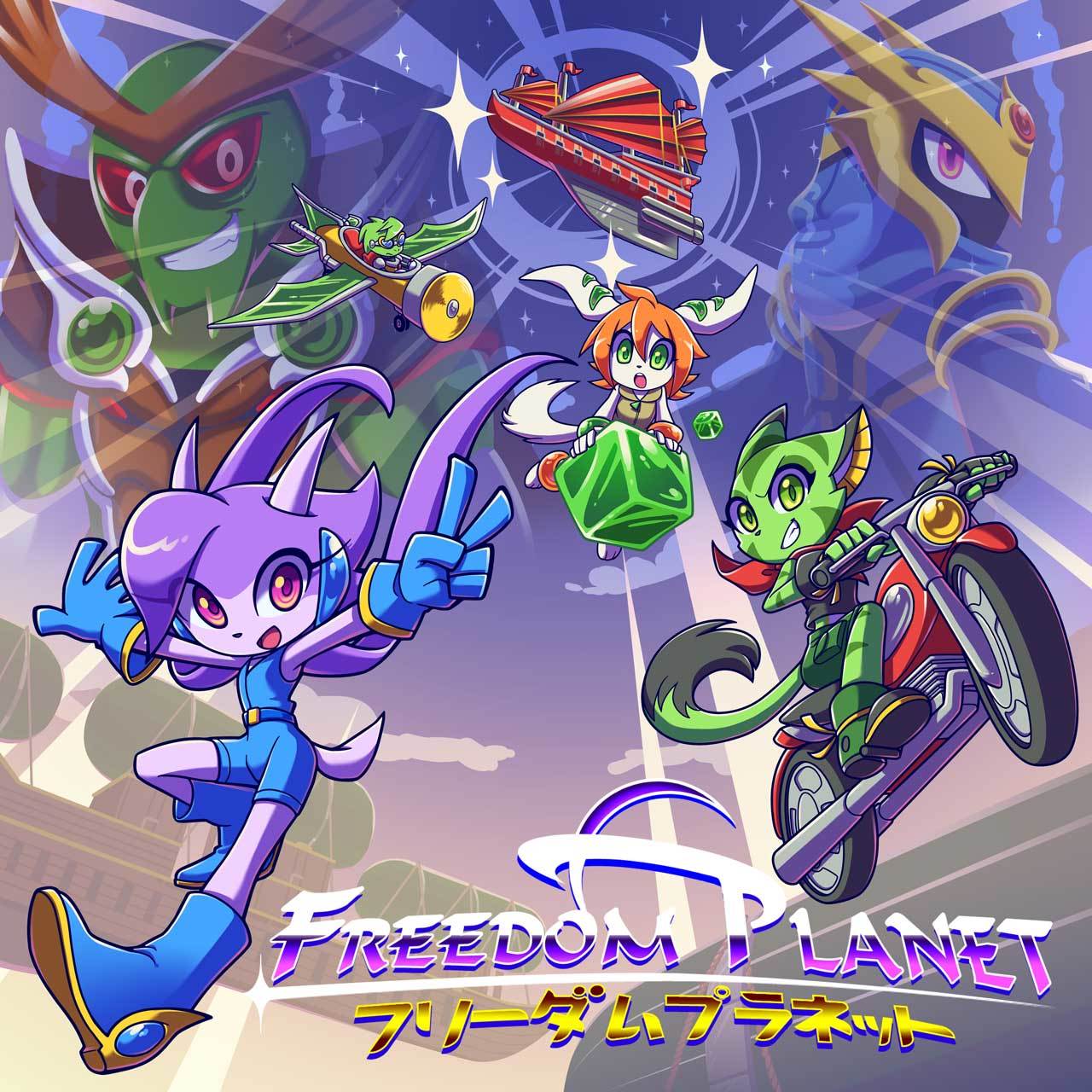
Freedom Planet Font
ActionFreedom Planet is a 2D platformer developed by GalaxyTrail. The game features fast-paced action, multiple playable characters, and a vibrant world filled with diverse enemies and bosses.
The game's title font bears a striking resemblance to Ondine, a script font evocative of gothic cursive handwriting from the medieval period. However, for those seeking a free alternative to Ondine, Ondine Five by CastCraft can be downloaded at no cost here at FontGet.